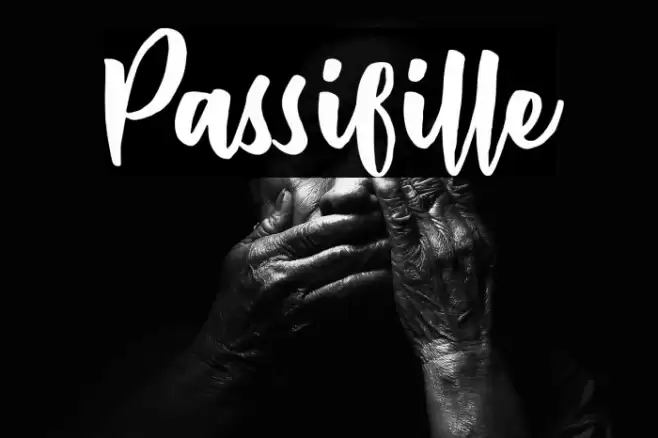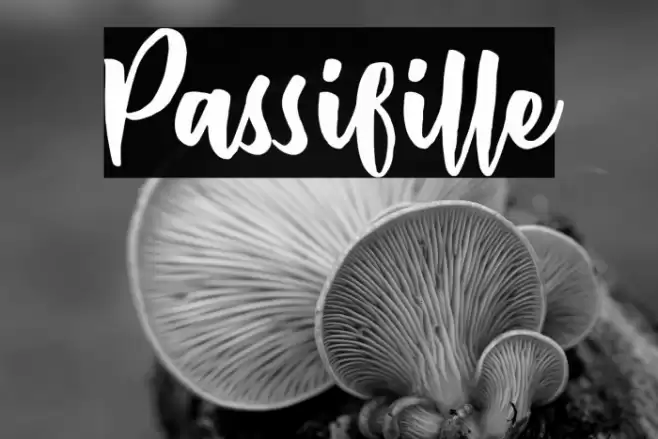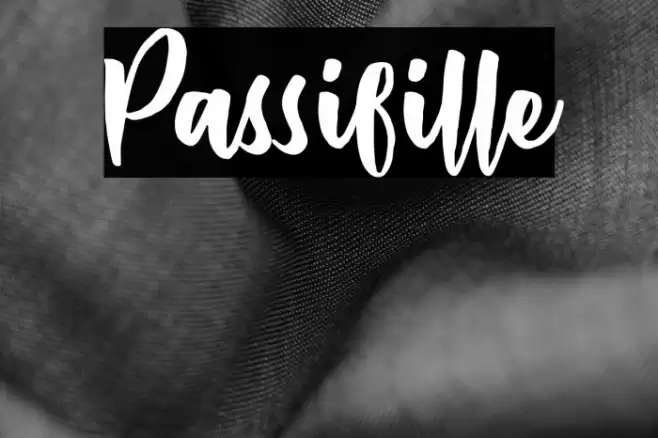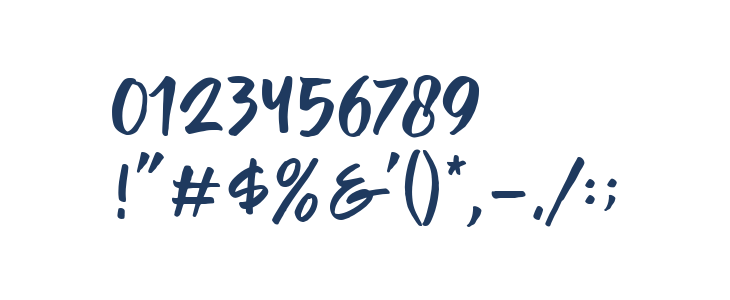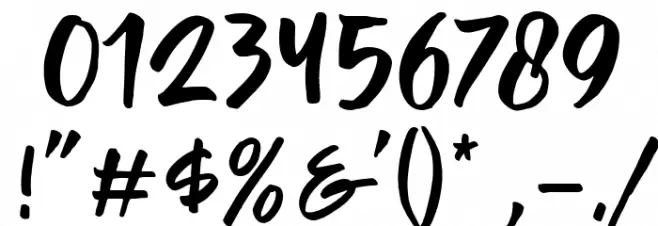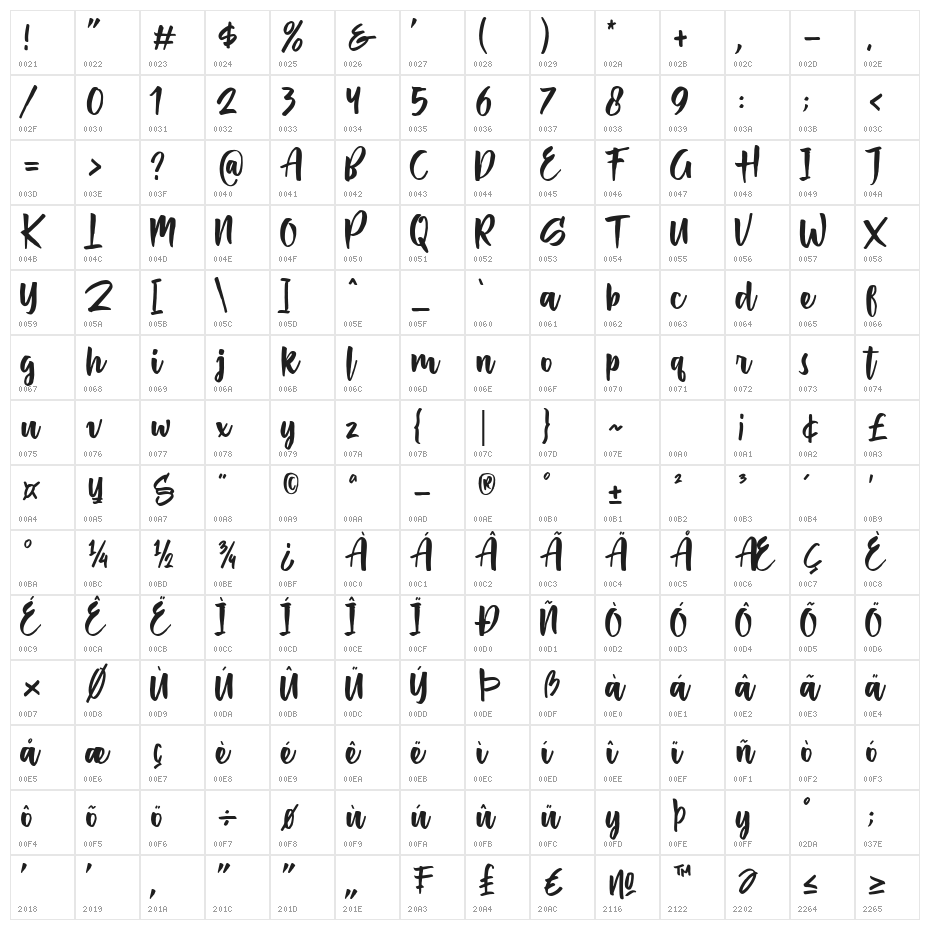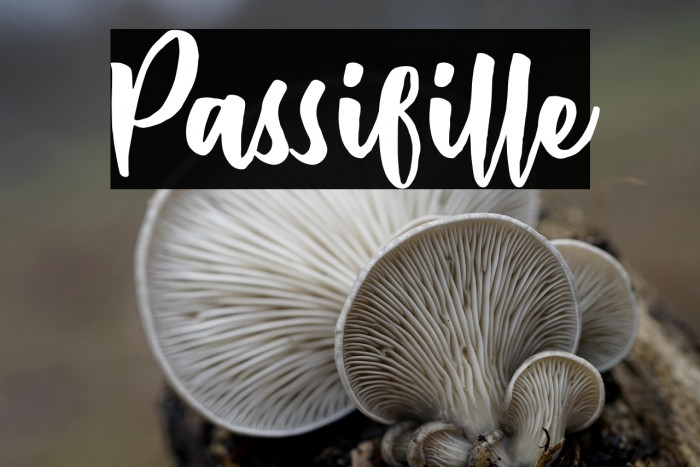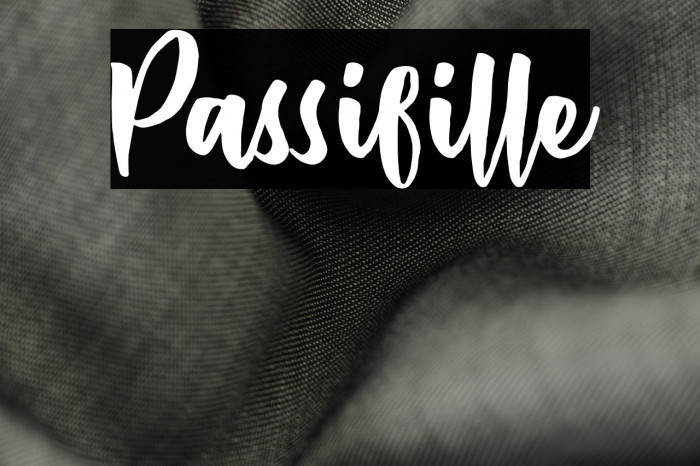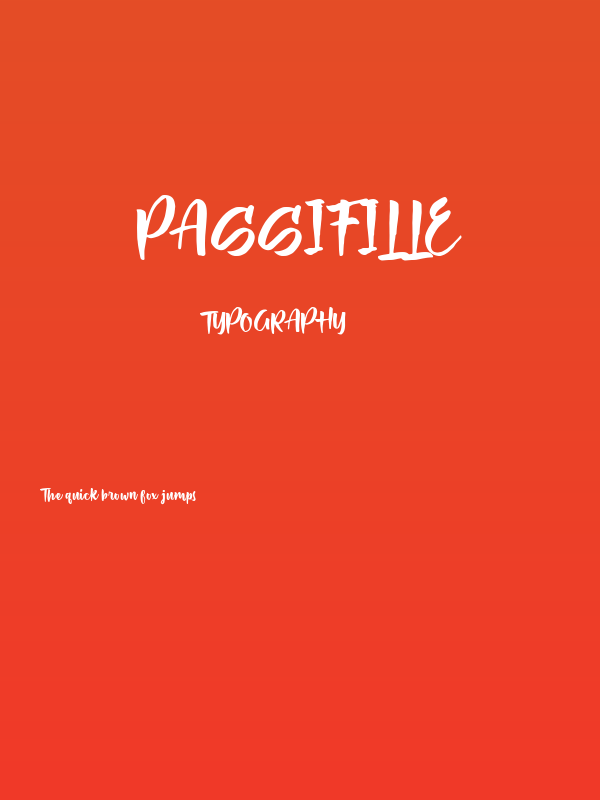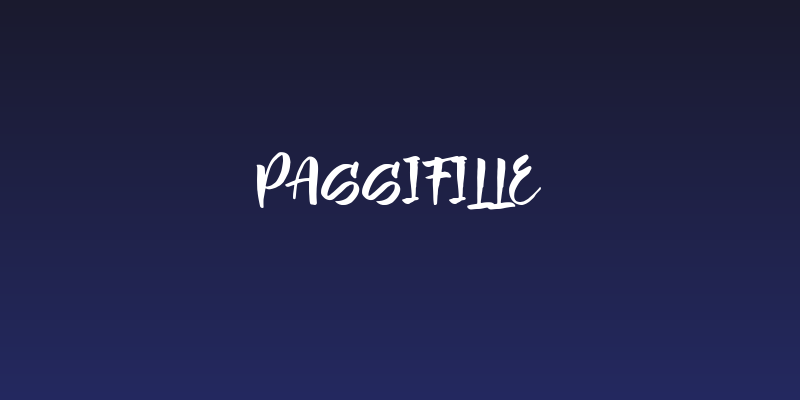
Passifille Font
Passifille Description
This font exhibits a bold and expressive handwritten style, characterized by its fluid and dynamic strokes. The letters have a playful and energetic appearance, with varying thickness that adds a sense of movement and personality. The uppercase and lowercase letters maintain a consistent style, while the numerals and special characters integrate seamlessly, enhancing the font's versatility. The overall design is modern and artistic, making it suitable for creative and informal applications.
A bold, expressive handwritten font with dynamic strokes and a playful style from Uncategorized fonts.
- Proposed Projects: Ideal for branding projects, invitations, greeting cards, posters, and social media graphics where a personal and artistic touch is desired.
- Overall Style: Modern, Decorative